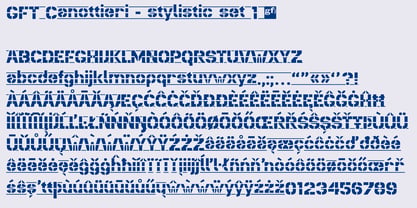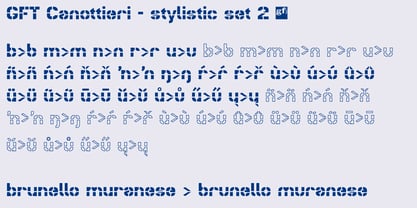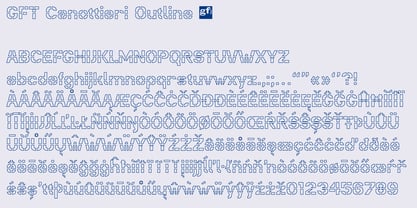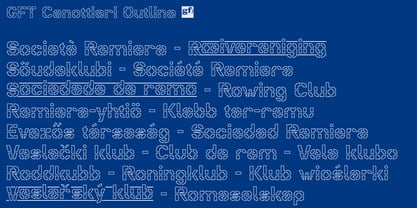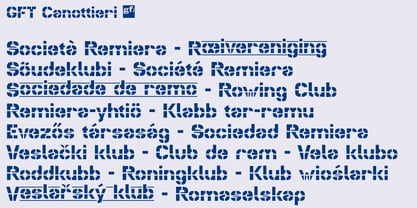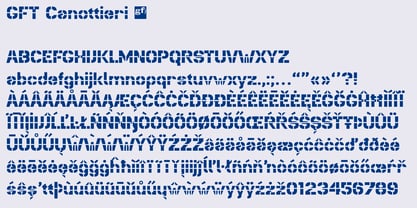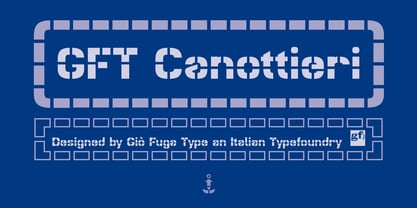
GFT Canottieri
by Giò Fuga Type
GFT Canottieri (2012) is a stencil display font originally designed by Giangiorgio (Giò) Fuga for the corporate identity of a Venetian rowing club. This font is intended to convey the deep connection between the Venetian community and rowing sports across various disciplines, including rowing, canoeing, kayaking, and Venetian rowing. The design of the various stencil glyphs, featuring different stylistic sets and the ability to create frames, evokes shapes associated with seafaring, beginning with the letter O, which resembles a lifebuoy.
Designers: Giangiorgio (giò) Fuga
Foundry: Giò Fuga Type
Giò Fuga Type is an Italian digital foundry led by Giangiorgio (Giò) Fuga, a typeface designer and professor currently based in Venice. Since the early 1990s, it has been dedicated to creating its own typefaces as well as proprietary fonts for international clients. The foundry has developed brands and typefaces for a diverse range of clients in both the publishing and corporate sectors, including notable names such as L'Espresso publications, Yamaha Motor, Brescia Metro, Giunti Libri scolastici, Dolomiti Bellunesi, City of Trento, Heritage, MAG, and the Lombardy Region.